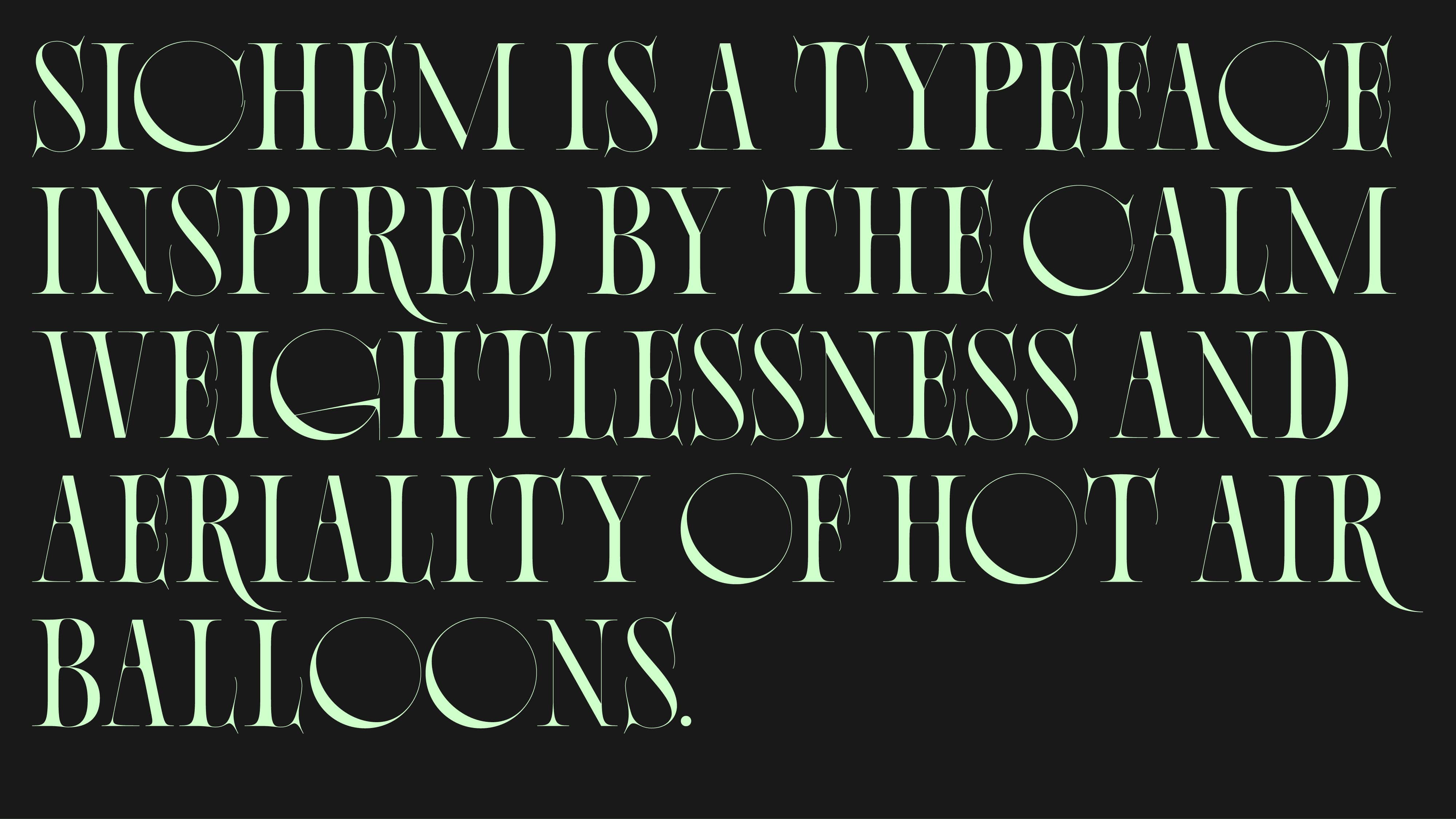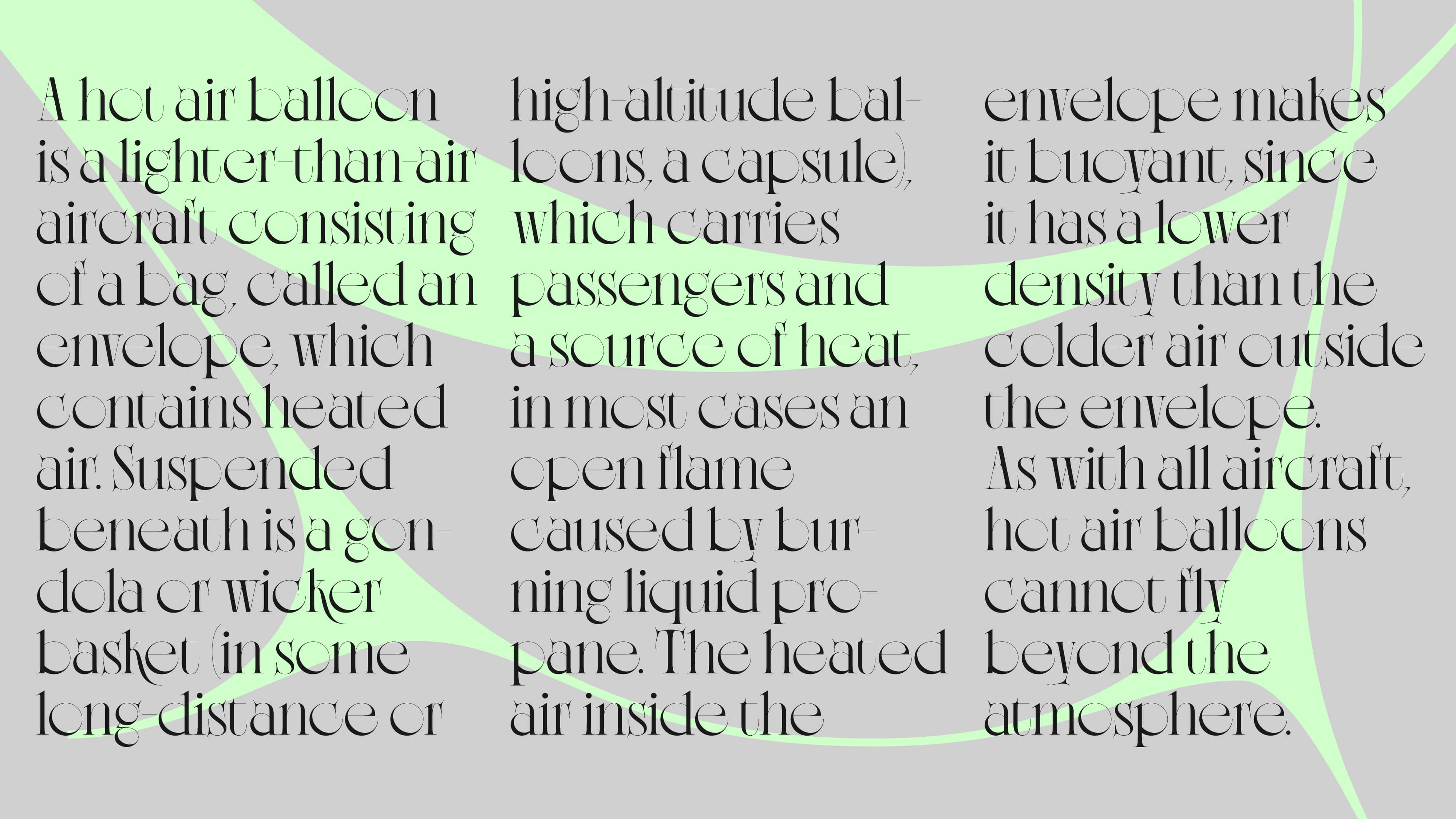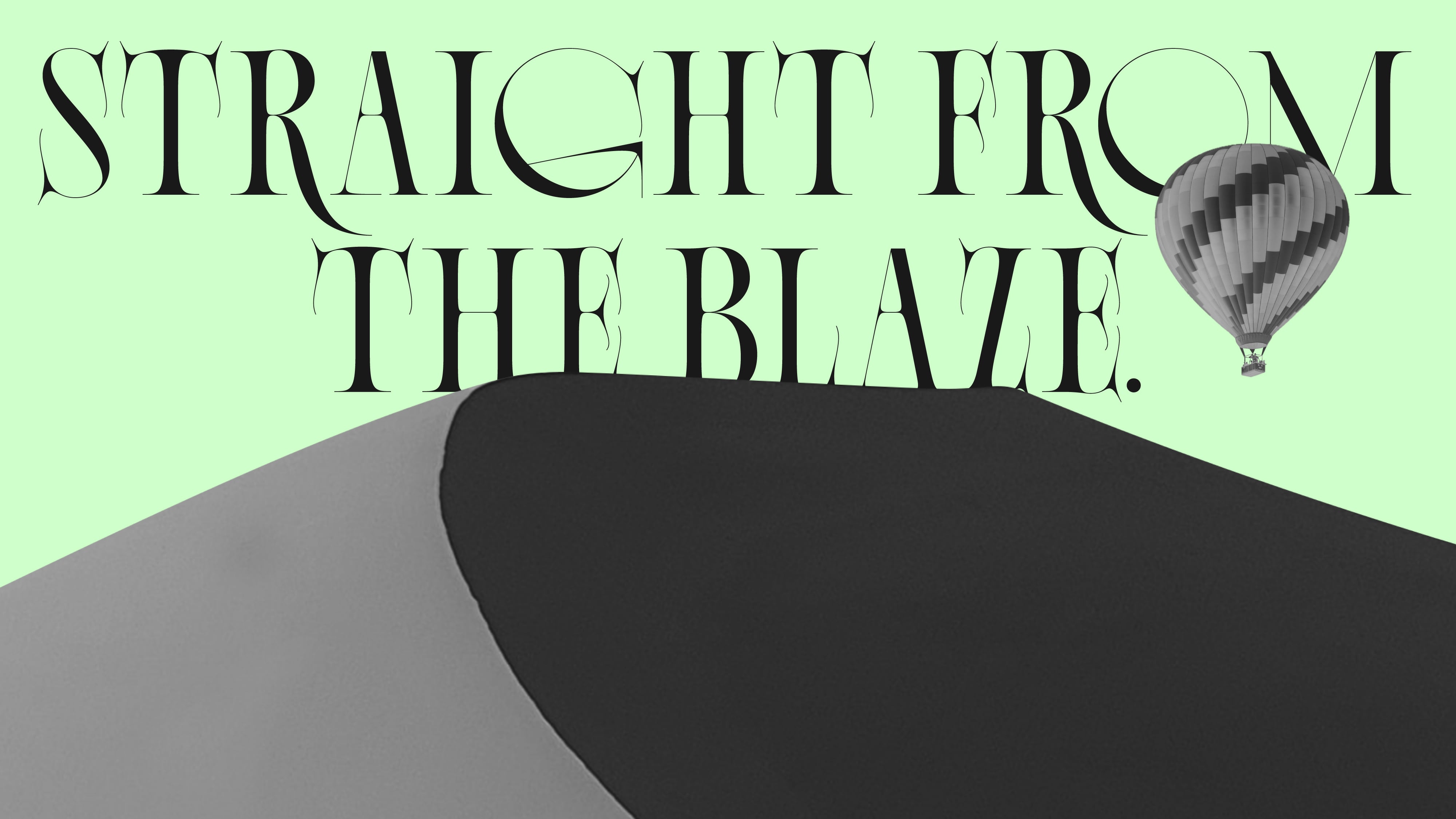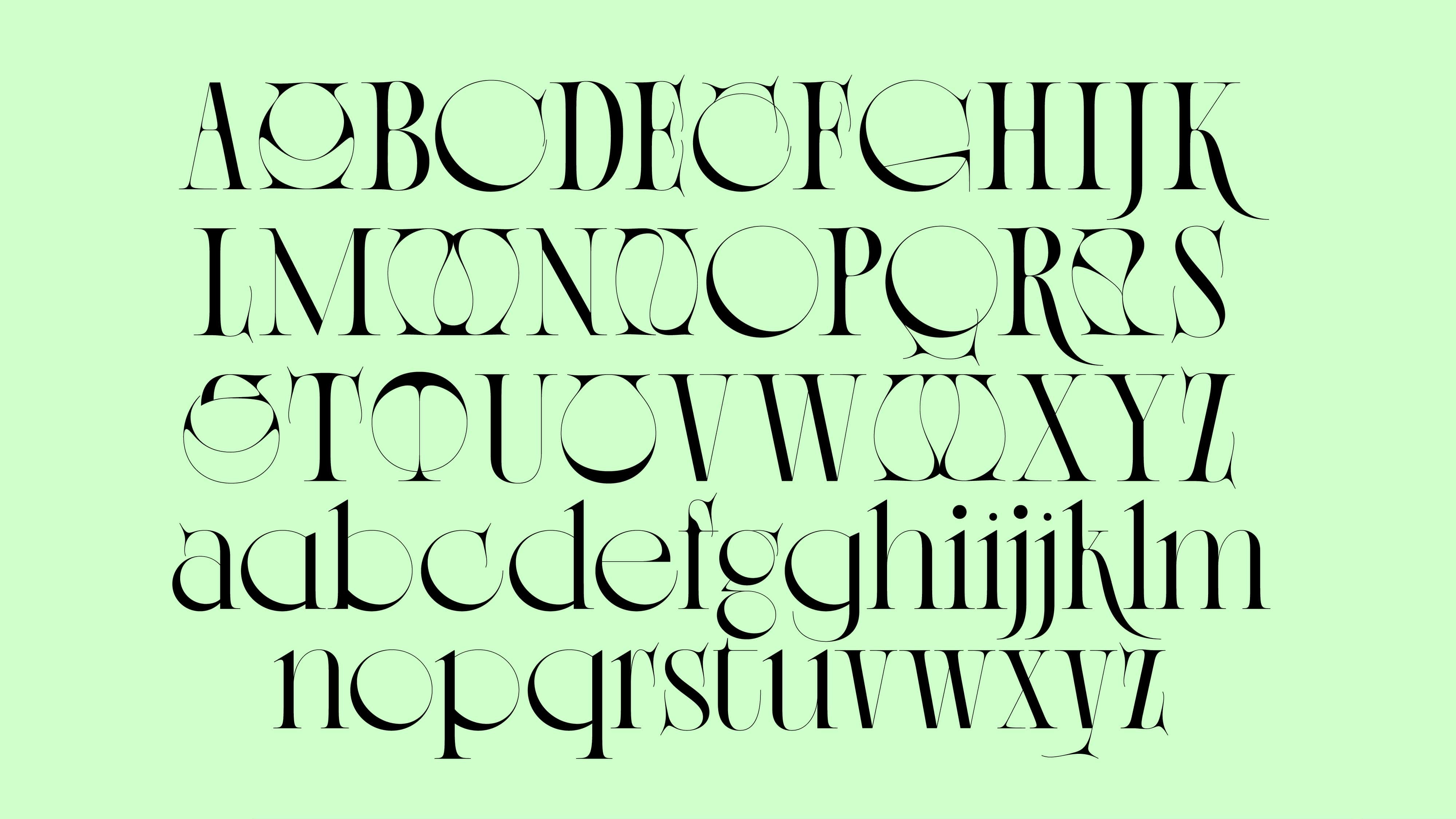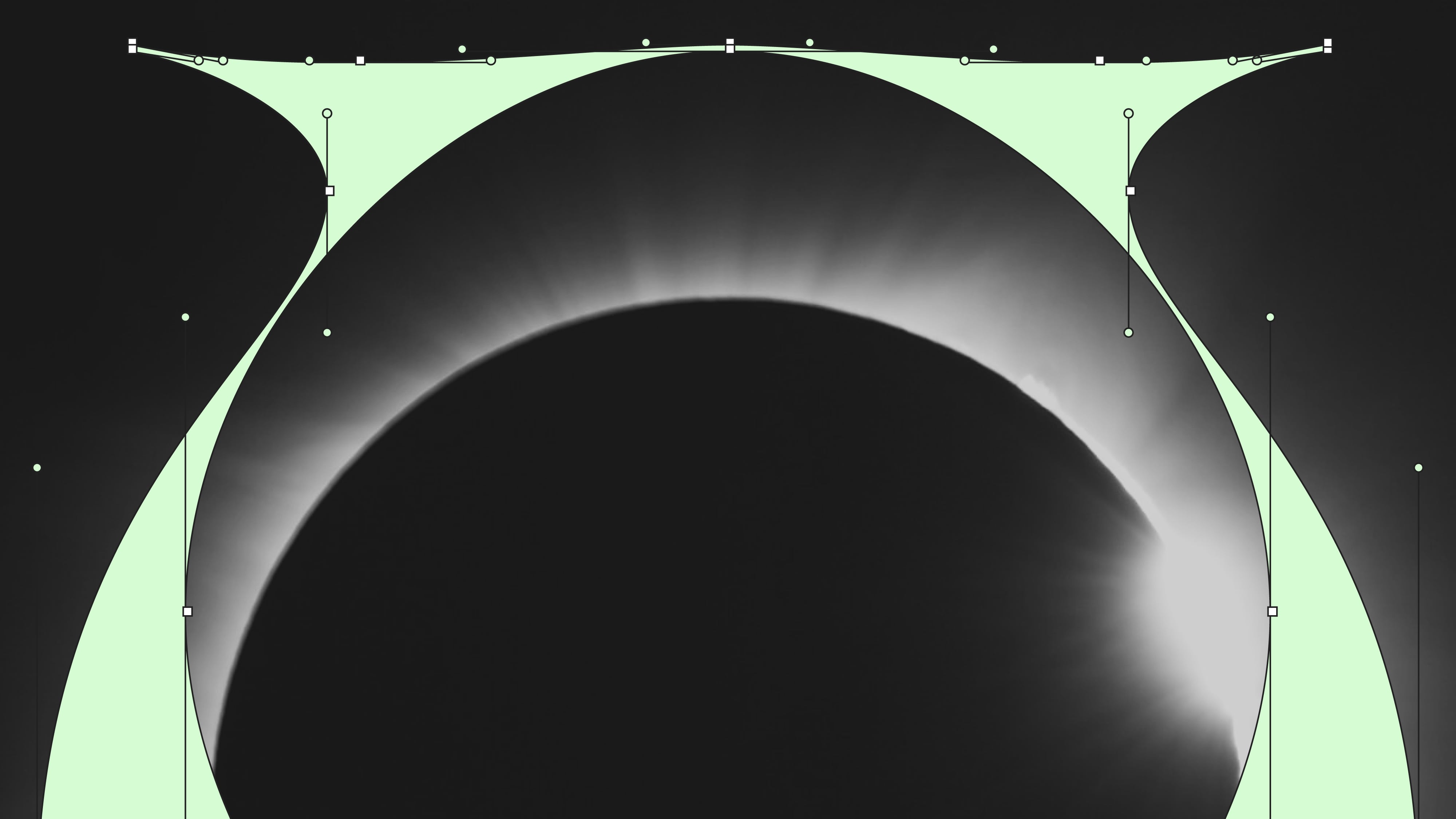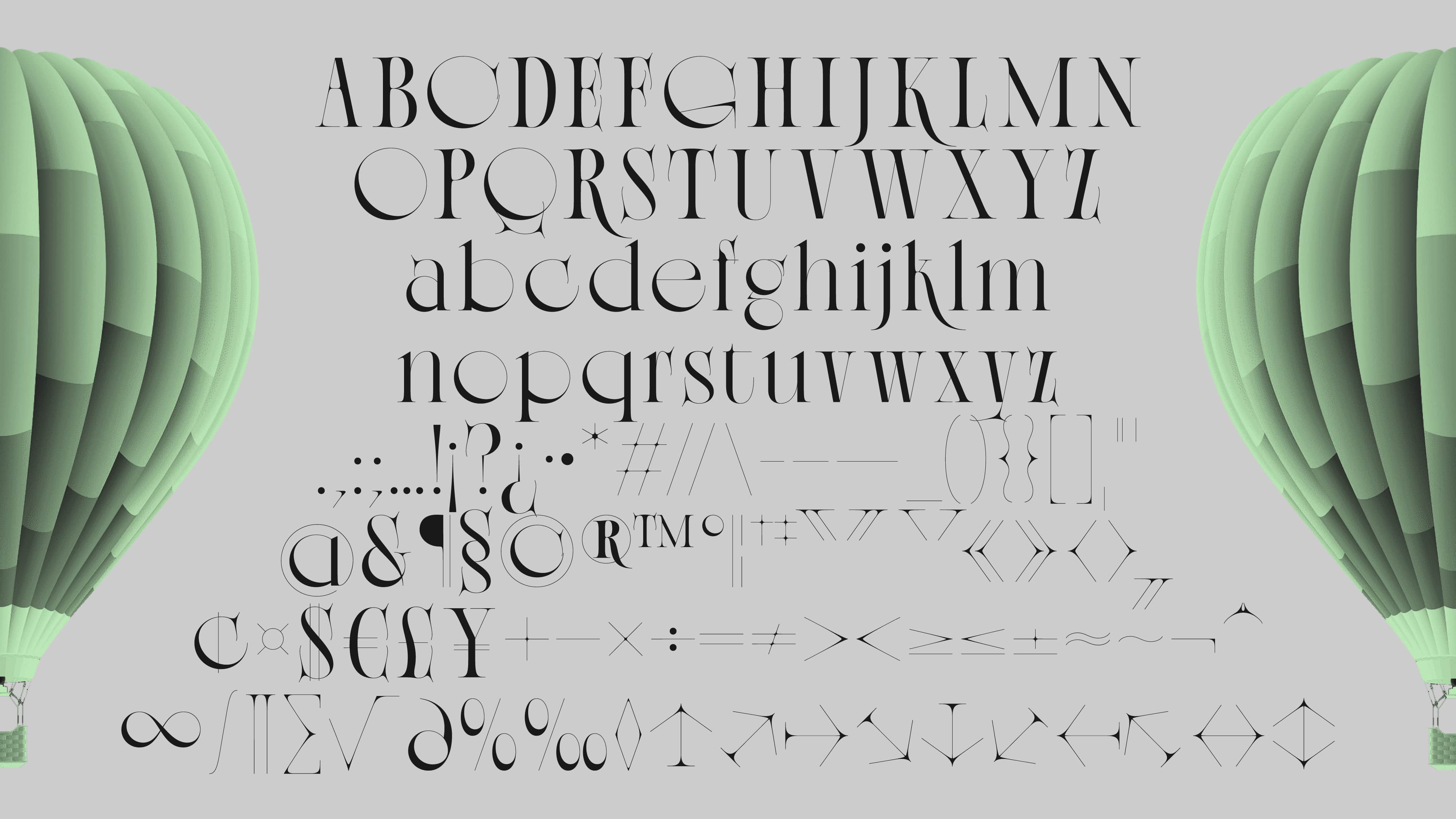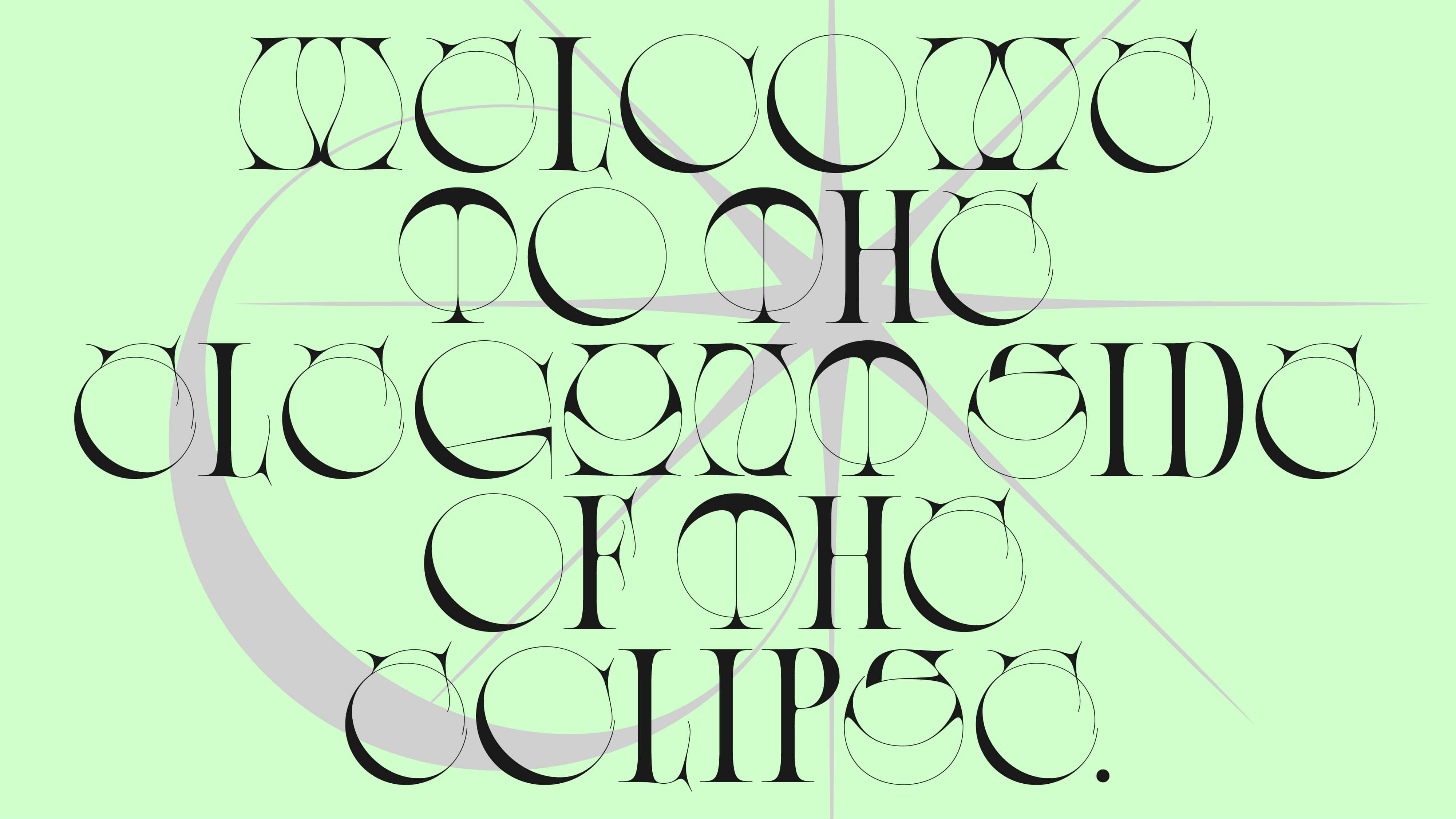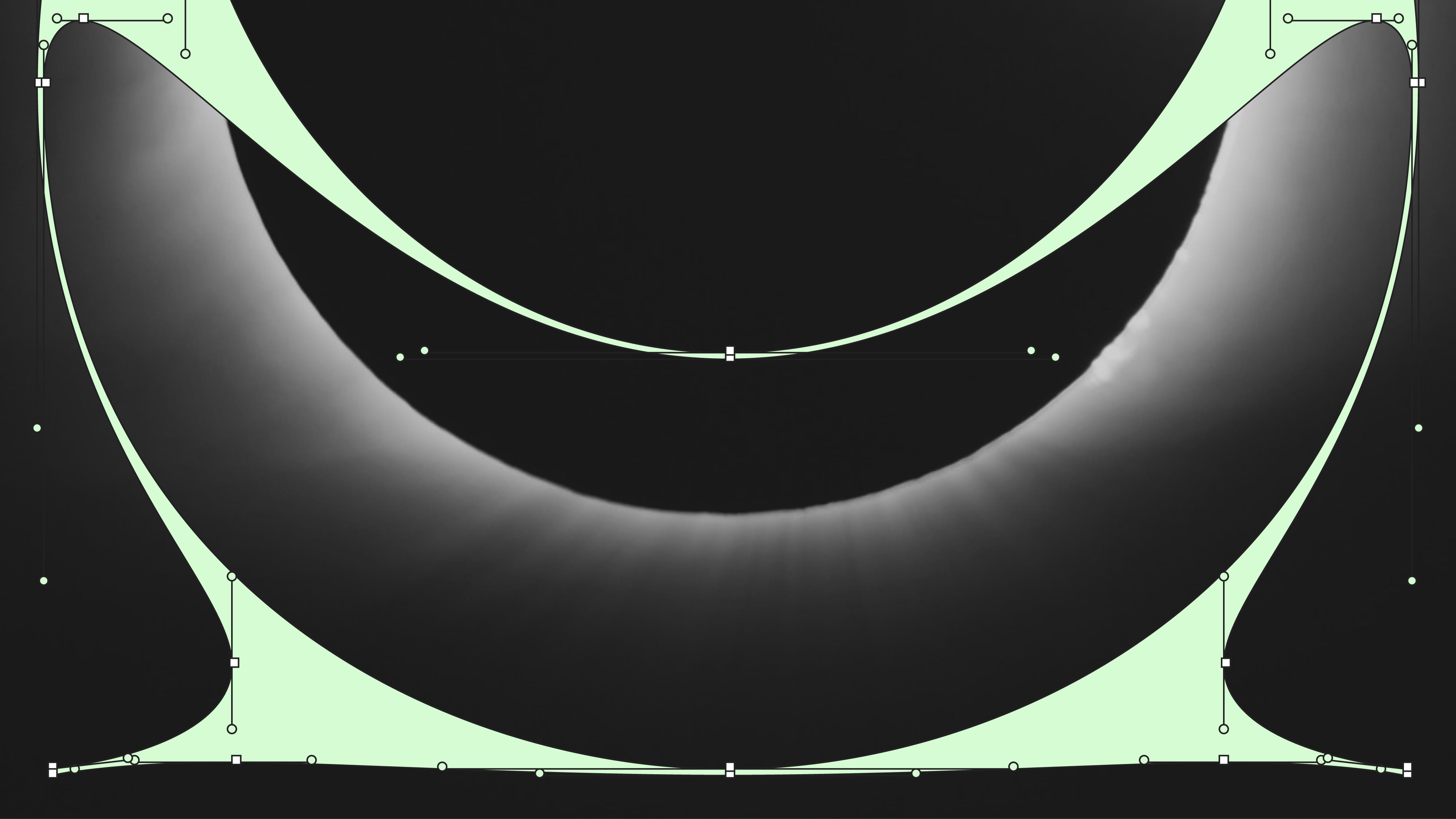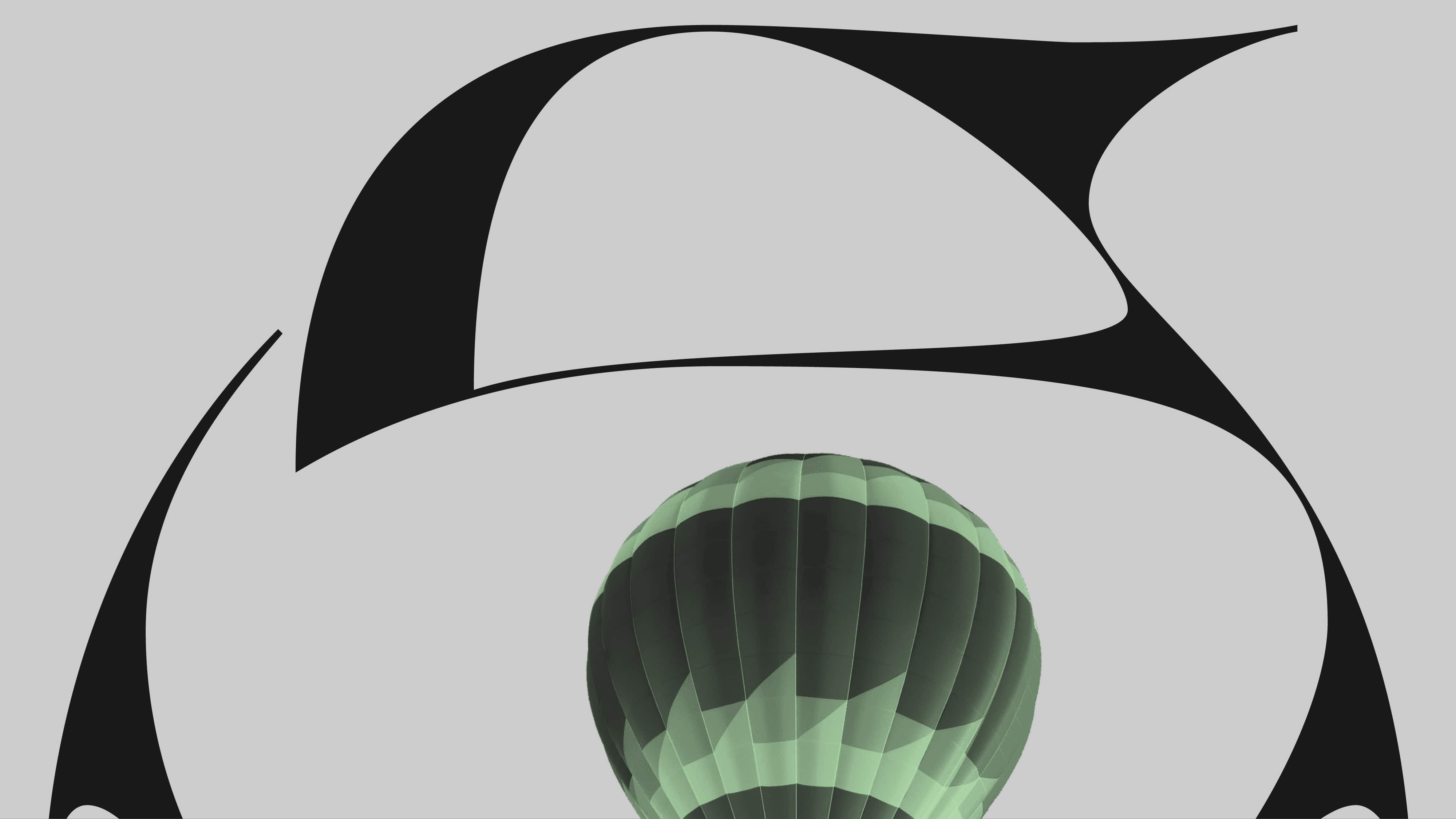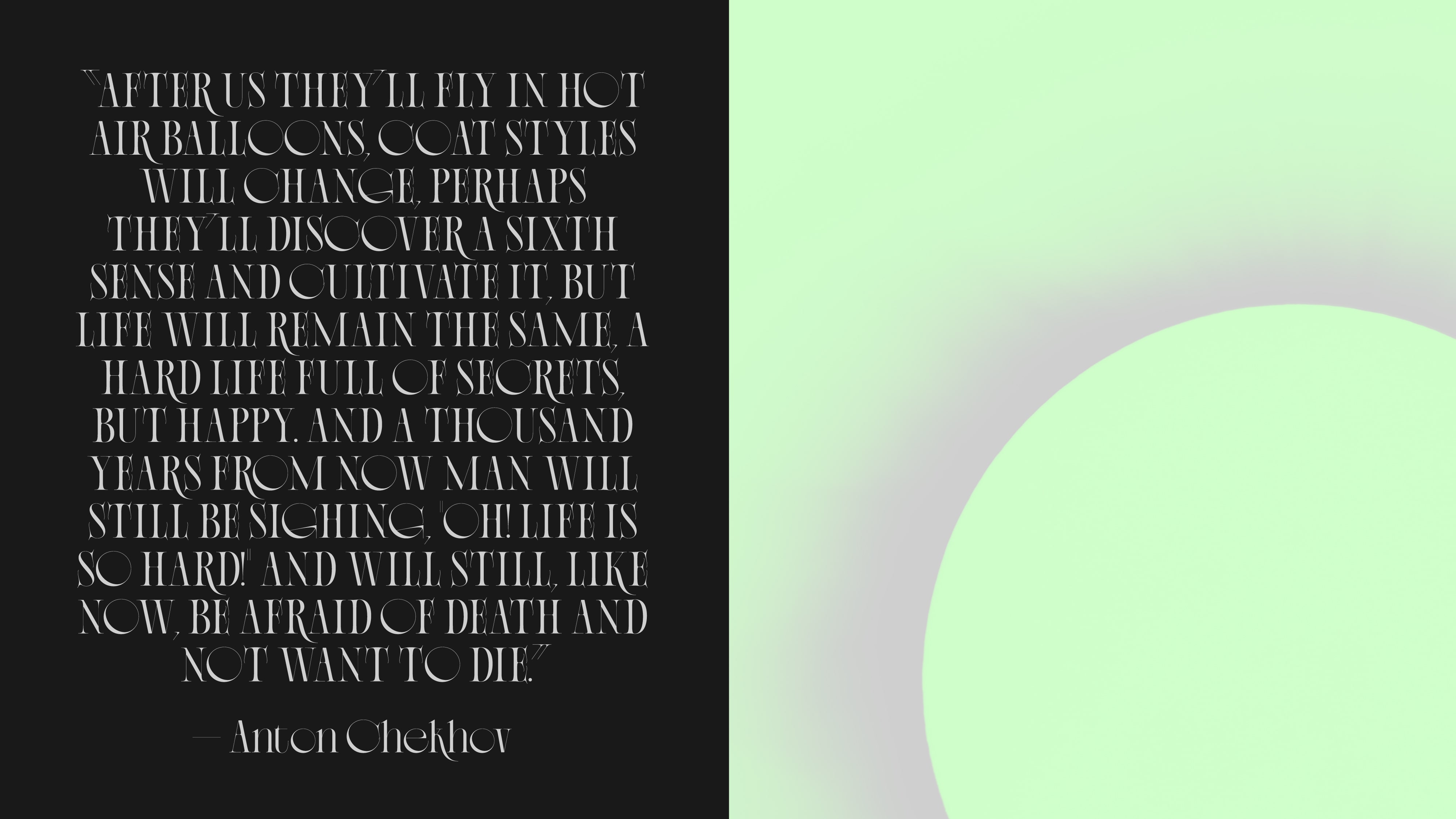
Sichem
Sichem is an exercise in transcribing in typographic form the weightlessness and aeriality of hot air balloons. It is an airy, elegant display typeface with unique serifs, and its great contrast, particularly in the rounded letters, reminds of eclipses and sun flares.
This typeface can be effectively used in various design applications to add a touch of sophistication and personality. For example, when creating magazine headlines or book covers, Sichem's generous sizes and intricate details can captivate readers' attention and make a strong visual impact. Its alternate caps can be selectively employed to create a sense of hierarchy and enhance the overall composition.
In the world of branding and logo design, Sichem offers a distinct charm that can elevate a company's visual identity. Its combination of Art Nouveau and Art Deco influences, blended with a contemporary touch, gives brands a unique and memorable character. Whether it's a luxury boutique, a café, or an event planning agency, Sichem can help create logos that convey elegance, creativity, and a touch of nostalgia.
Additionally, Sichem's design versatility allows it to be seamlessly incorporated into digital interfaces and web designs. Its graceful and legible letterforms ensure readability on screens of various sizes, making it suitable for website headings, banners, and interactive elements. By using Sichem, designers can infuse a sense of refinement and style into their online presence.
Sichem is not just another display serif. It is a typeface that embodies the essence of hot air balloons, with its weightless and airy aesthetics. Whether it's for magazine headlines, book covers, branding, or digital interfaces, Sichem offers a versatile and distinctive typographic solution that brings elegance and personality to various design projects. Are you ready to take flight with Sichem?